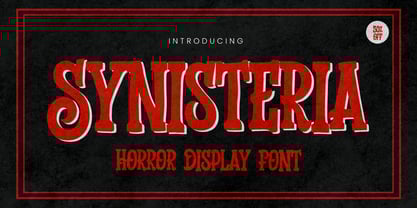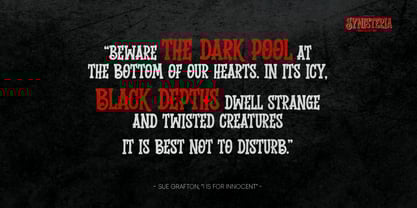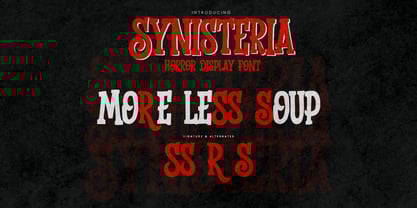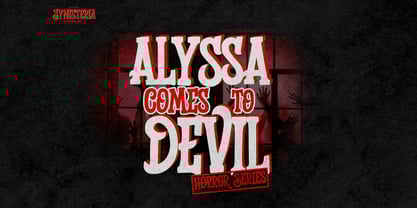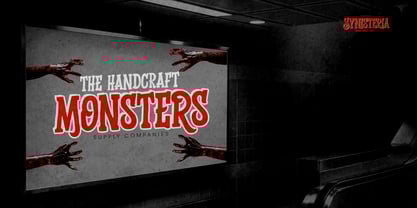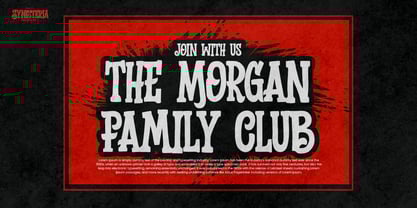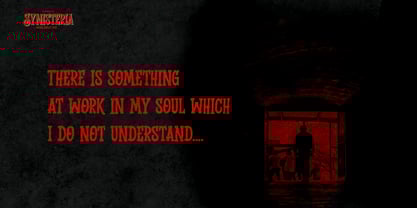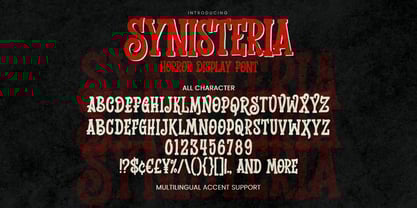
Synisteria
by Gassstype
The Synisteria Font Family was designed by Abdul Malik Wisnu and published by Gassstype. Synisteria contains 1 styles. More about this family
Introducing Font Synisteria, a captivating horror display font that embodies a textured natural style with a classy touch. Its clear design and dramatic movement make it an excellent choice for your next creative project. Perfect for logos, printed quotes, invitations, cards, product packaging, headers, logotypes, letterheads, posters, and more. Font Synisteria adds a unique flair to photography watermarks and is ideal for branding, advertisements, stationery, wedding designs, labels, and special events. With its charming, authentic, and relaxed characteristics, this font brings a more natural look to your text, making it a versatile addition to any design.
Designers: Abdul Malik Wisnu
Foundry: Gassstype